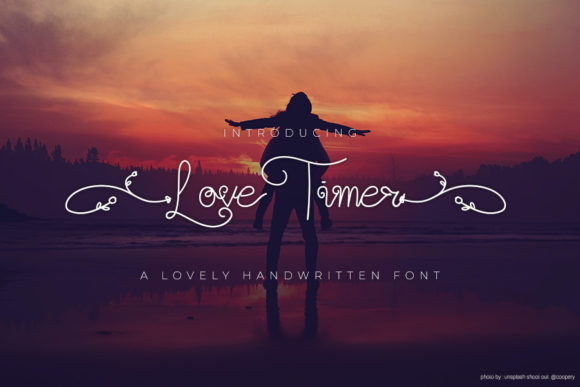
Step into a realm of elegance and charm with Love Timer Font, a whimsical handwritten font crafted by Creassion Studio. This enchanting script dances across your screen with its graceful strokes and delicate curves, leaving an imprint of artistry in its wake.
Love Timer's innate charm lies in its ability to cast a spell of allure over any design. Its unique and captivating letterforms, adorned with intricate details and flowing lines, breathe life into your creations, making them stand out with a touch of timeless beauty. Each glyph is a stroke of genius, meticulously crafted to convey a profound sense of emotion and warmth.
Unleash your creativity with Love Timer and explore a world of possibilities. It's the perfect font for crafting logos that leave a lasting impression, branding that exudes sophistication, and quotes that resonate with your audience. Let Love Timer's magic transform your words into visual masterpieces, captivating your viewers with its timeless appeal.